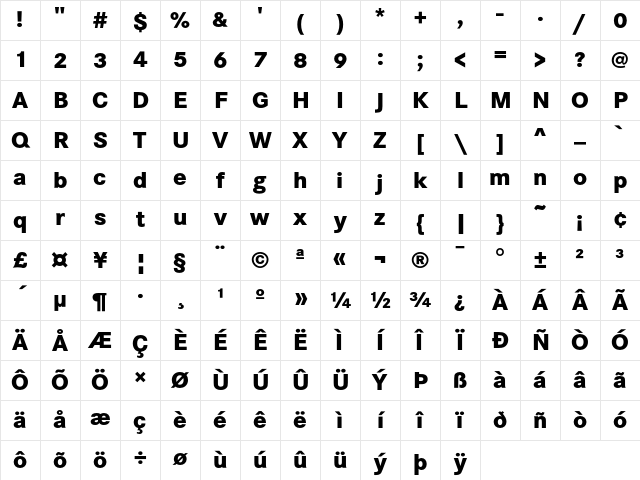
Corporate S Extra Bold
Style: Extra Bold
Design Context for Corporate S
Corporate S is a composed and adaptable typeface that performs quietly and consistently across a wide range of design contexts. Its bold stroke weight gives it real presence on the page.